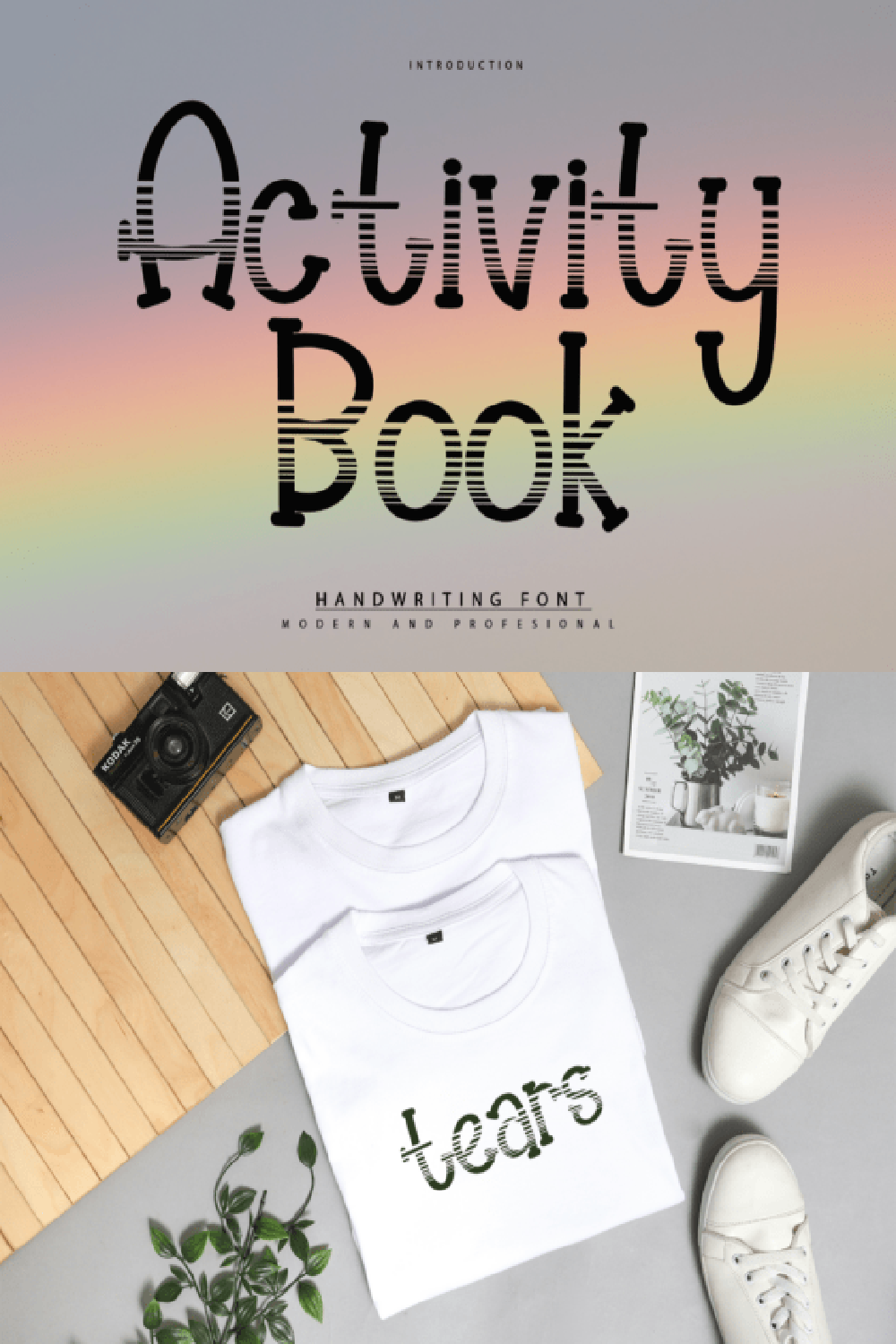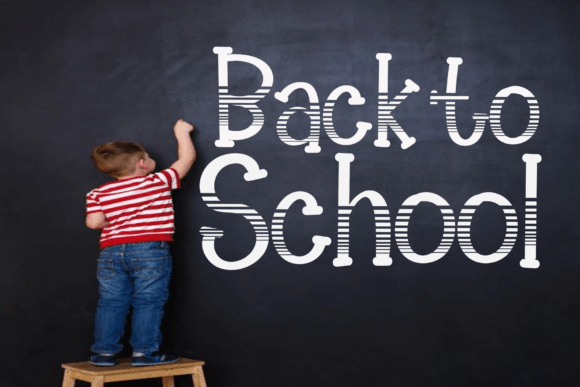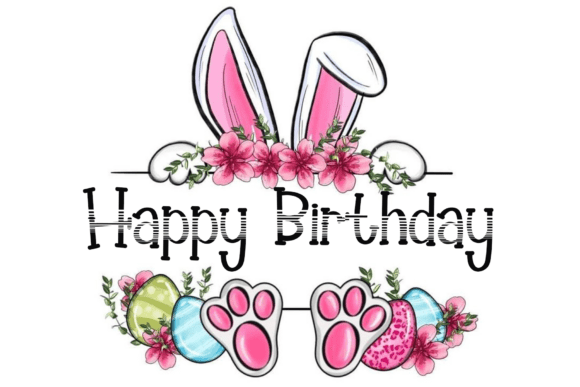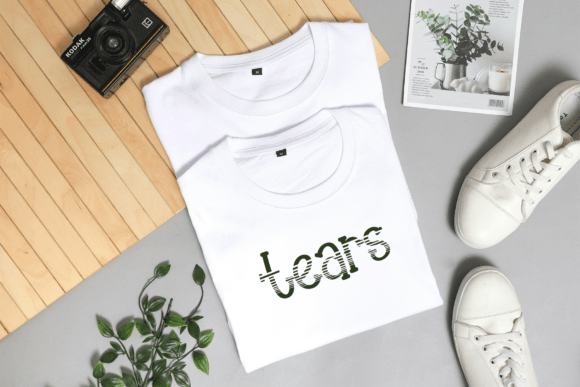
Activity Book Font: A Cute Handwritten Font for Cricut & Crafting!
About the Activity Book Font
Unleash your creativity with Activity Book Font, a versatile font perfect for a wide range of applications. Activity Book is a sweet and friendly handwritten font. Its natural and unique style makes it incredibly fitting to a large pool of designs. The only limit is your imagination!
Activity Book excels in projects requiring a friendly and approachable feel. Ideal applications include children’s books, invitations, greeting cards, and packaging for products targeting a younger demographic or those emphasizing a playful, handmade aesthetic. It’s less suitable for large blocks of body text or UI elements where legibility is paramount.
For effective pairings, consider pairing Activity Book with a clean sans-serif like Open Sans for body copy, balancing its handwritten charm with modern readability. Alternatively, a classic serif font such as Garamond could add a touch of sophistication and contrast.
Activity Book projects a cheerful, informal personality. Its handwritten style evokes a sense of authenticity and warmth, making it perfect for brands focused on handcrafted goods, childhood memories, or community engagement.